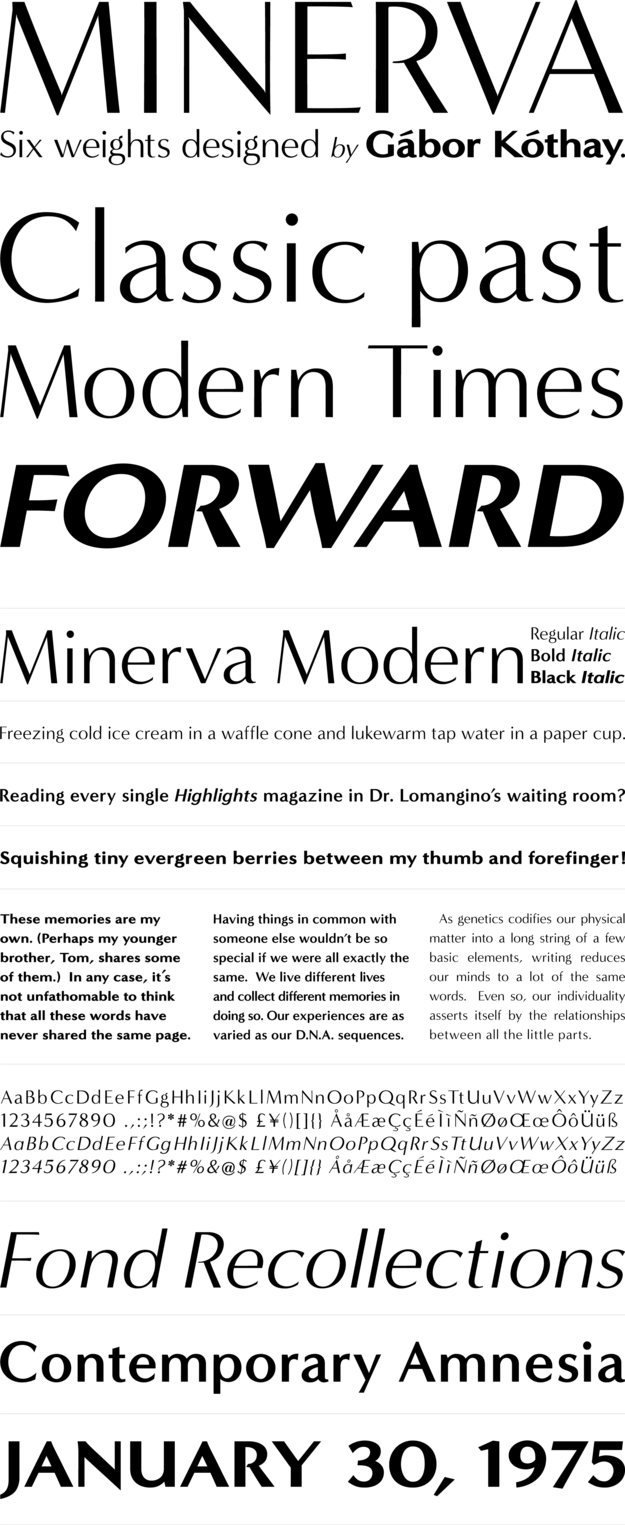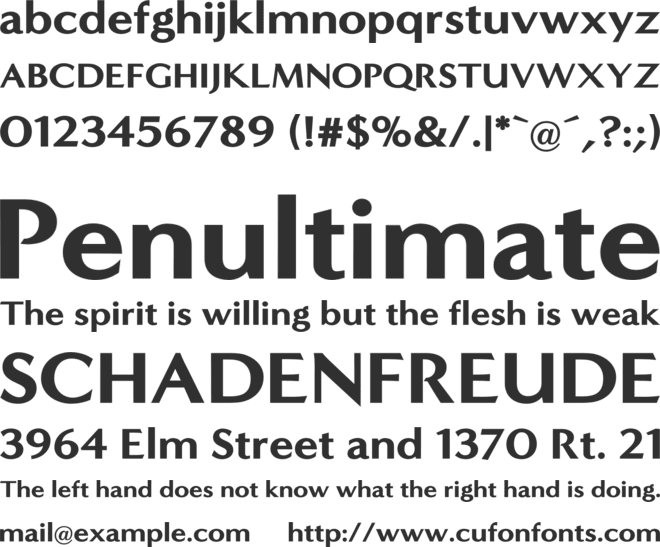
Minerva Modern Font
Minerva Modern Font - Web explore minerva modern available at adobe fonts. A sans serif typeface with 6 styles, available from adobe fonts for sync and.
Web explore minerva modern available at adobe fonts. A sans serif typeface with 6 styles, available from adobe fonts for sync and.
A sans serif typeface with 6 styles, available from adobe fonts for sync and. Web explore minerva modern available at adobe fonts.
Web explore minerva modern available at adobe fonts. A sans serif typeface with 6 styles, available from adobe fonts for sync and.
Minerva Modern Font
Web explore minerva modern available at adobe fonts. A sans serif typeface with 6 styles, available from adobe fonts for sync and.
T.26 Digital Type Foundry Fonts Minerva Modern
Web explore minerva modern available at adobe fonts. A sans serif typeface with 6 styles, available from adobe fonts for sync and.
A sans serif typeface with 6 styles, available from adobe fonts for sync and. Web explore minerva modern available at adobe fonts.
A sans serif typeface with 6 styles, available from adobe fonts for sync and.